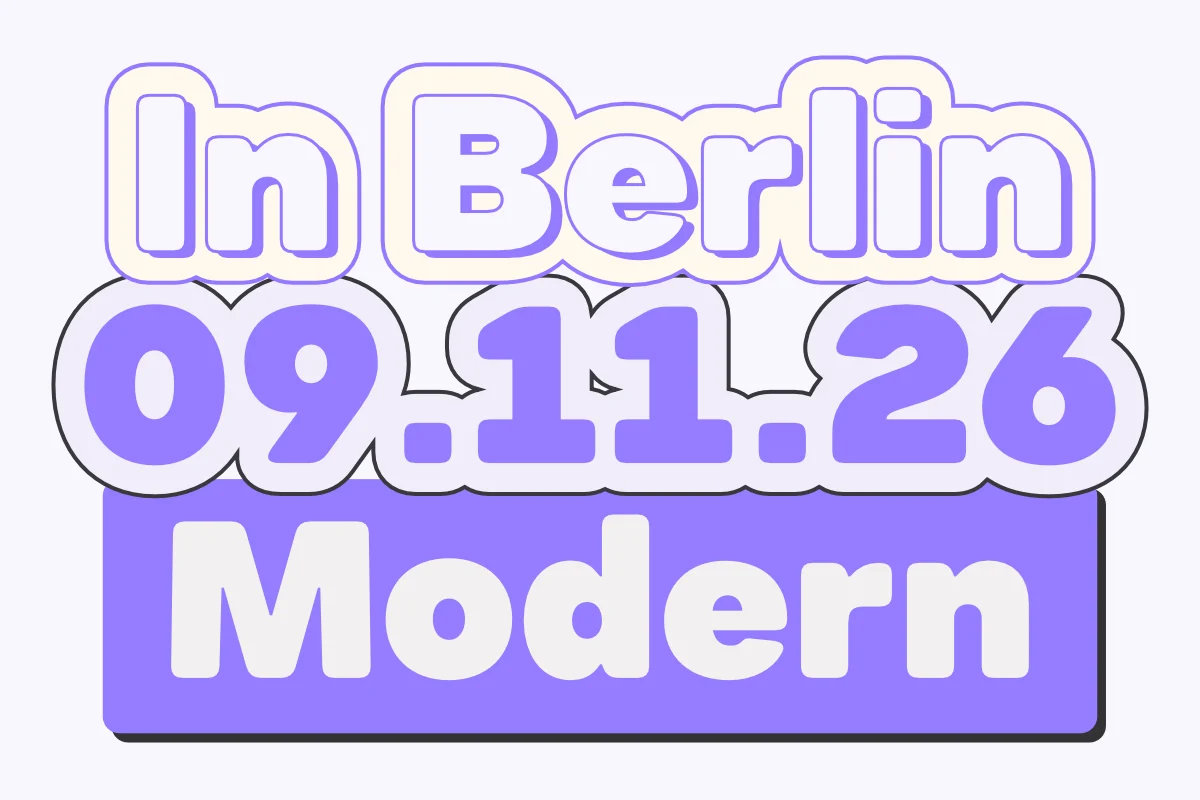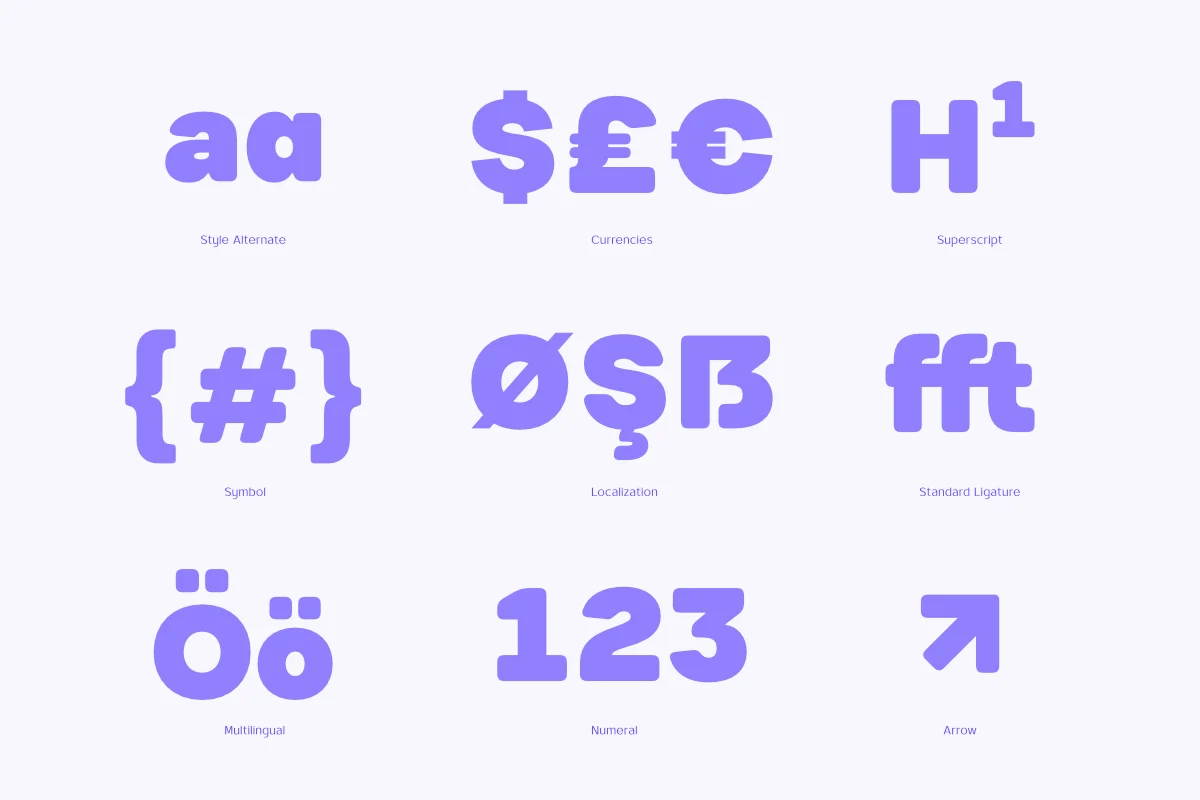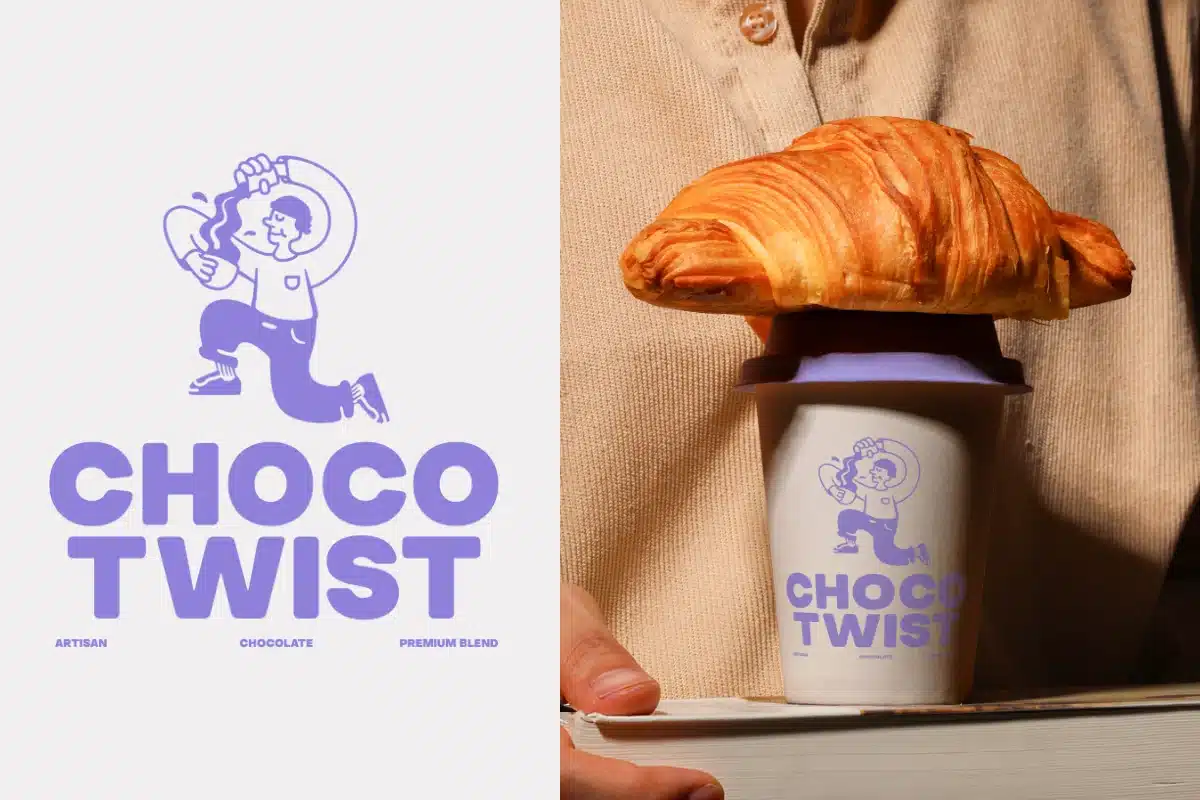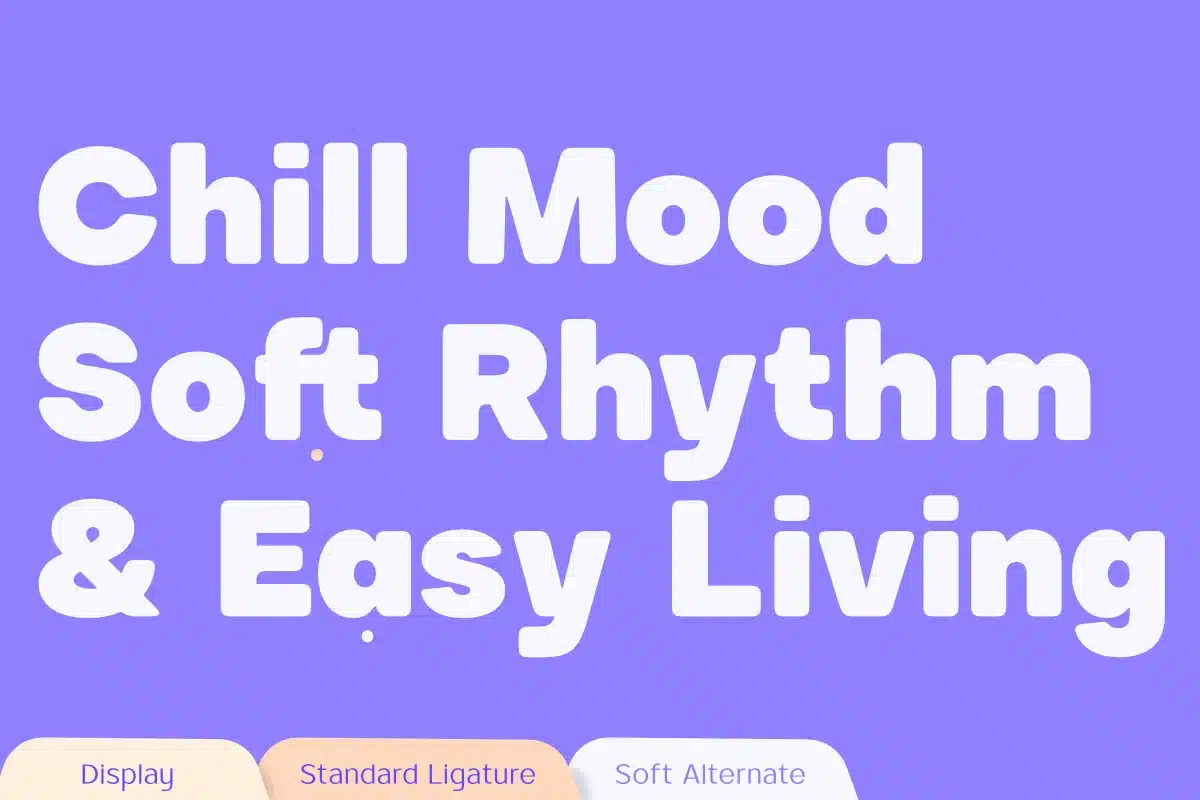
Moder Contemporary Rounded Display Typeface Font
Moder is a contemporary rounded display typeface designed to deliver a bold and modern visual identity. Created with smooth curves and clean rounded corners, this typeface offers a friendly yet powerful character that stands out in large headlines and modern branding.
The letterforms are carefully crafted to balance softness and strength, making MODER ideal for designs that require clarity, personality, and strong visual presence. Its geometric construction and rounded terminals create a modern aesthetic that works perfectly across various creative projects.
Whether used for branding, posters, packaging, social media graphics, or editorial layouts, MODER brings a confident and contemporary tone to your typography.
Multilingual character support ensures flexibility for global projects, while its balanced structure keeps the typeface readable across both print and digital media.
✦ Font Features
- OpenType Glyphs
- Alternate Characters
- Multilingual character support